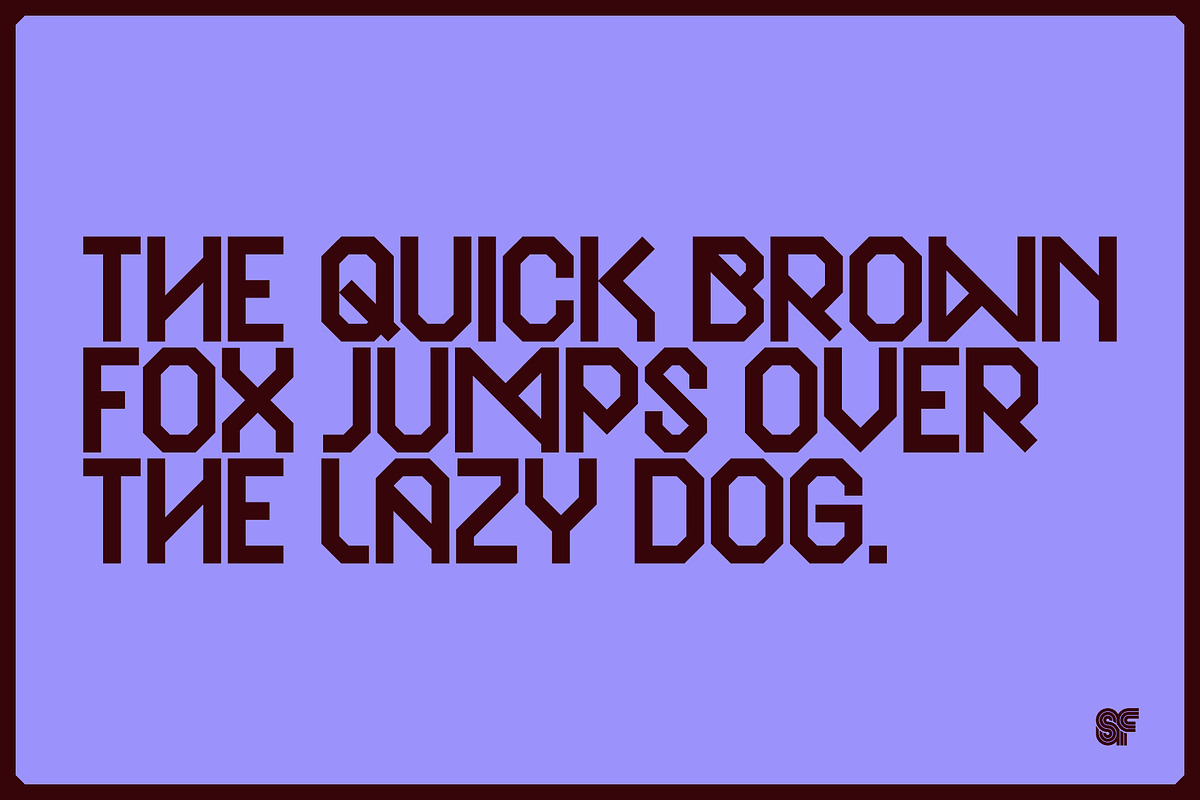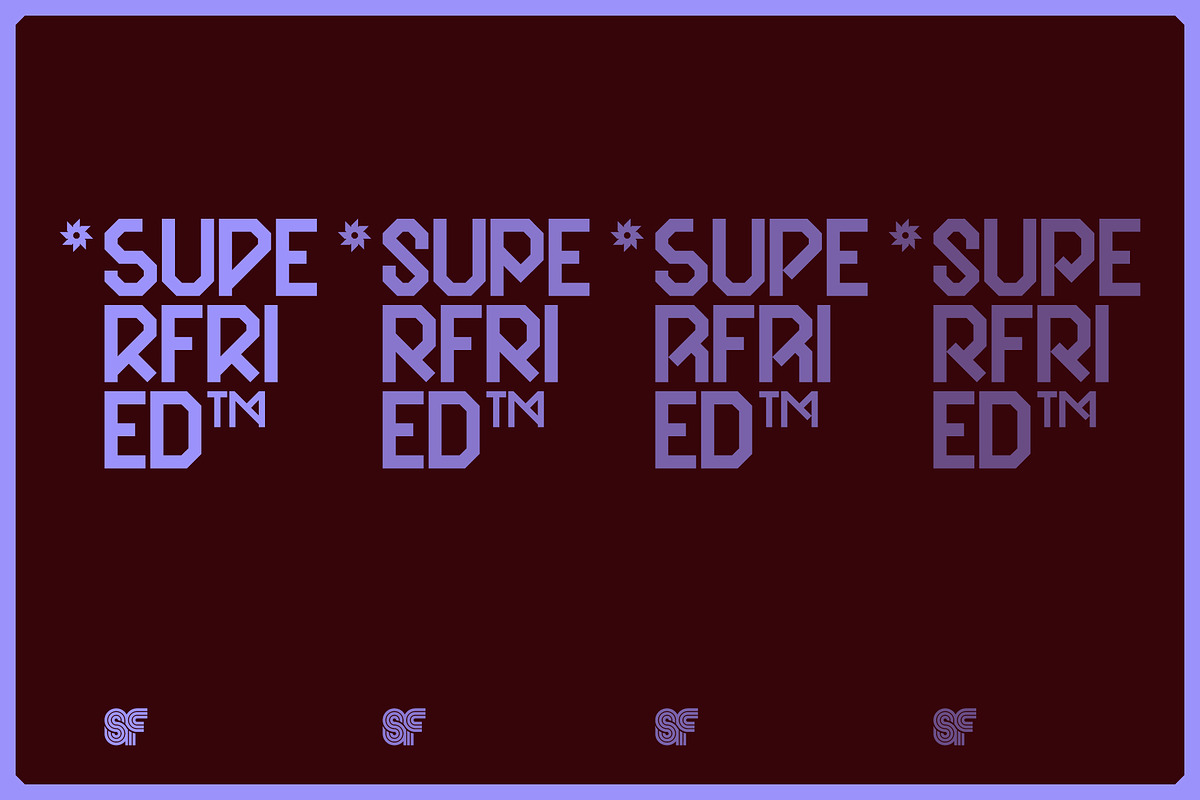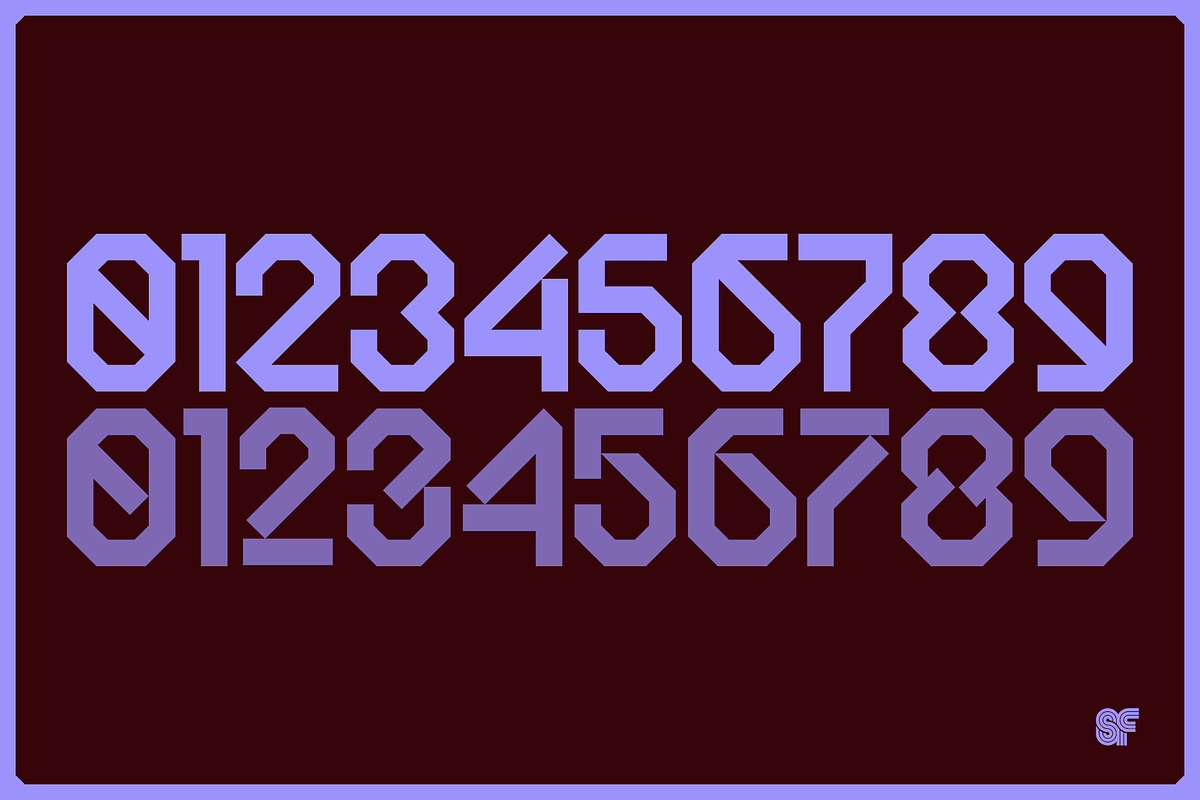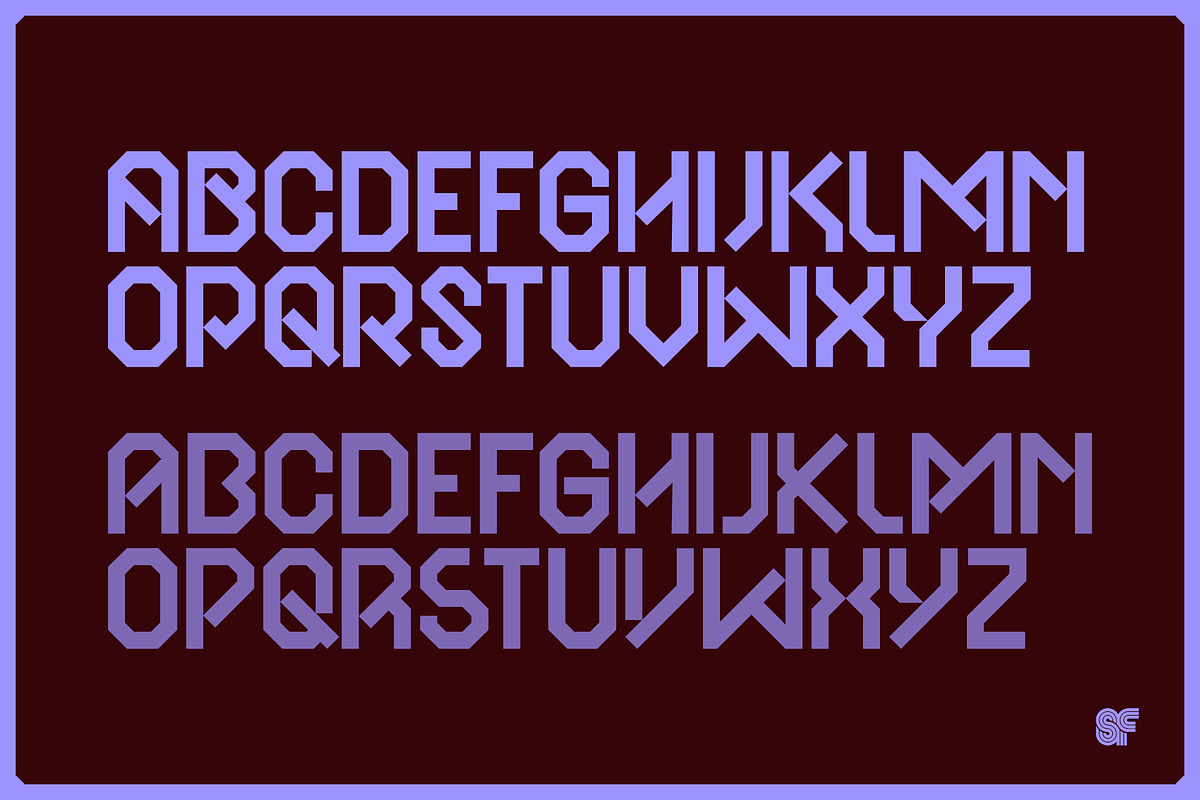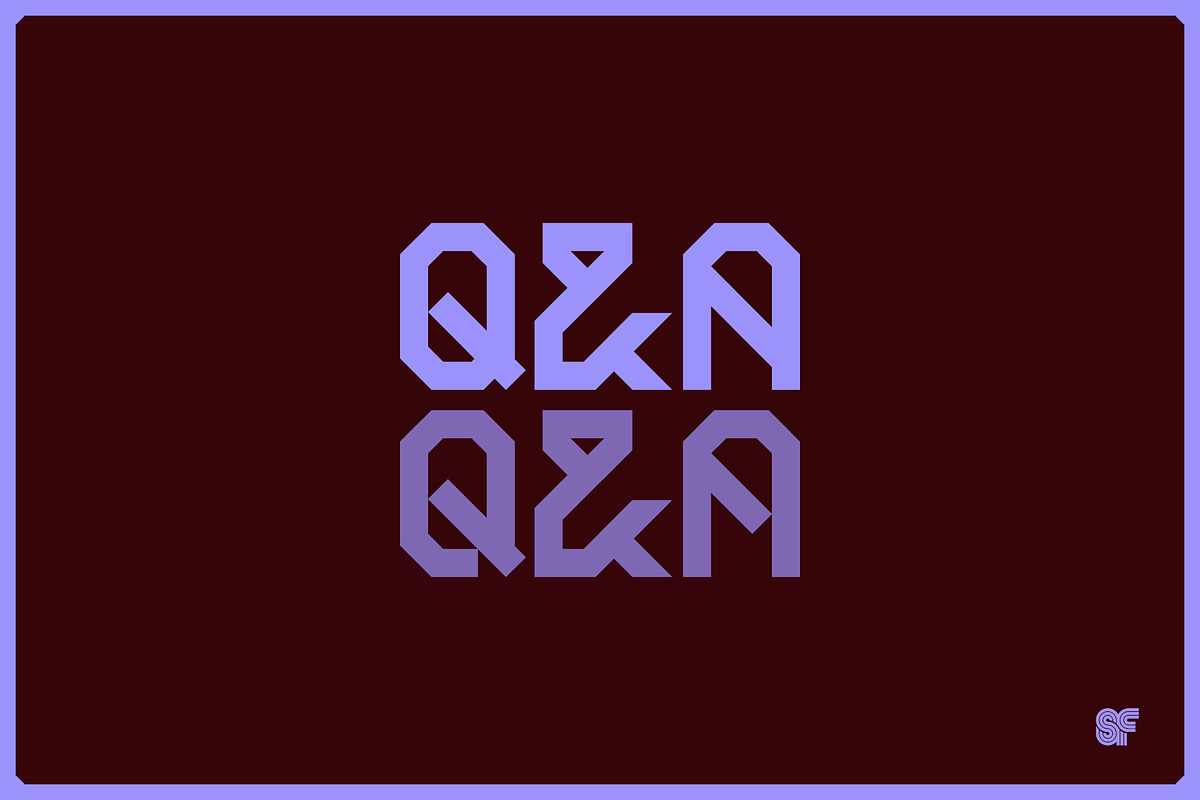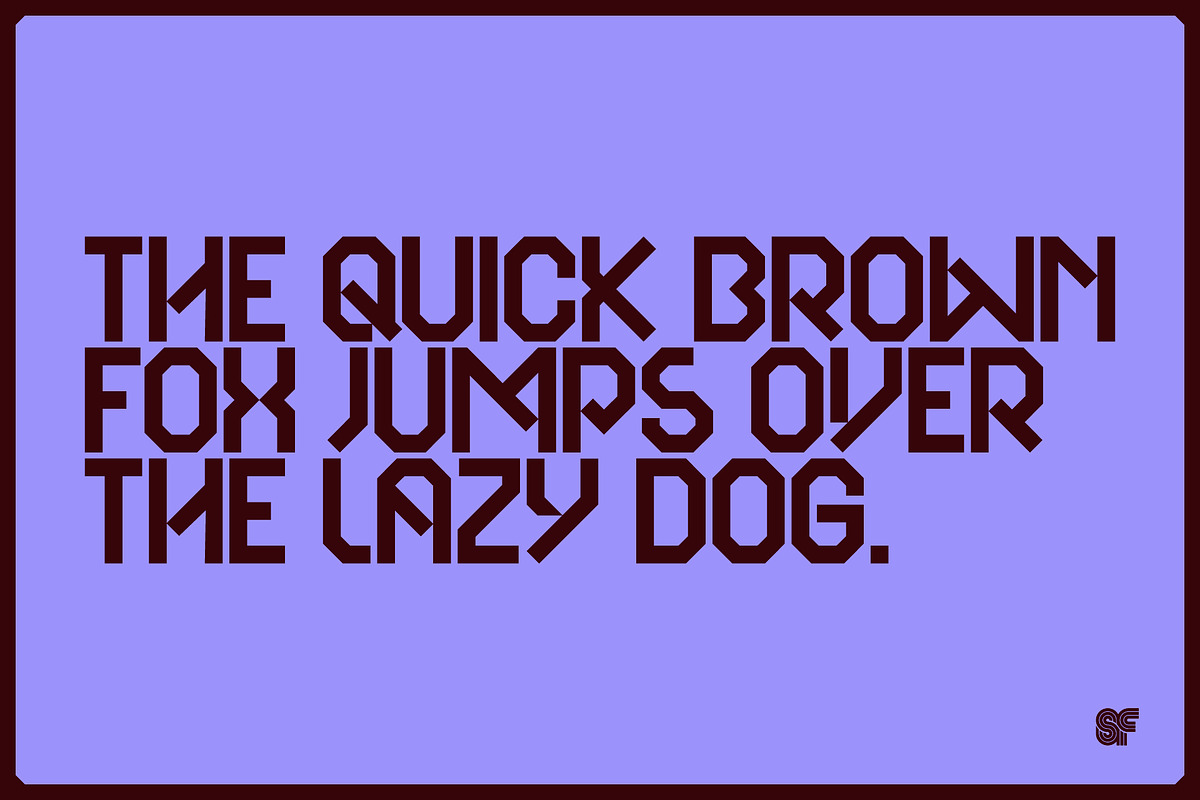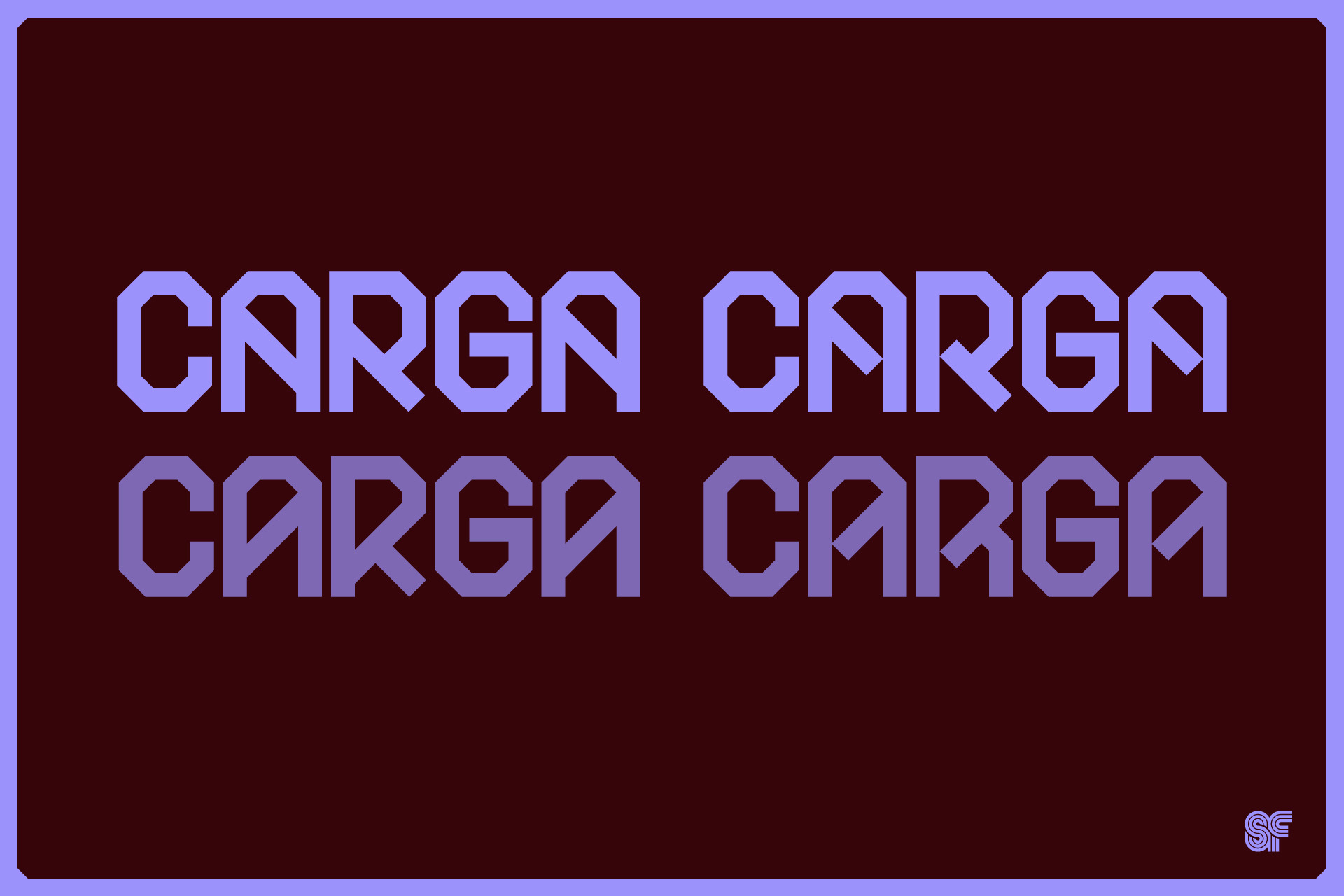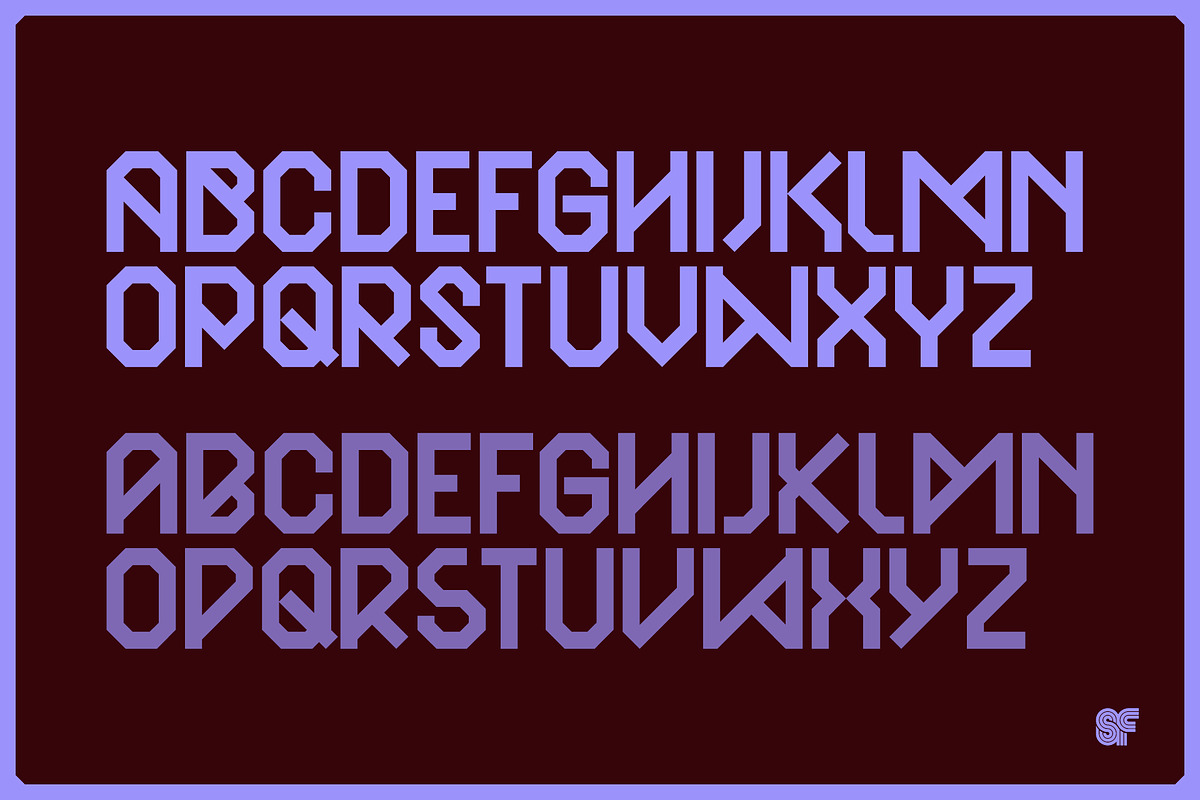
CARGA | Display | 2 Fonts | 4 Styles
NEW - Remastered for 2025!
Originally crafted in 2015 by Superfried, Carga is a striking, angular display typeface designed for impactful uppercase lettering. Drawing inspiration from the bold typography seen on container ships, its name, Carga, translates to 'Cargo' in Spanish, reflecting its robust character. The 2025 version enhances its versatility with two distinct fonts: display and display cut, with the diagonal bars being cut short in the latter, as the name suggests.
Within each font, users can easily switch the direction of the diagonal bars between two interchangeable character styles using the shift key. This makes Carga perfect for branding, editorial design, and web applications where variety and versatility are key. Elevate your projects with this high-impact, brutalist typeface.